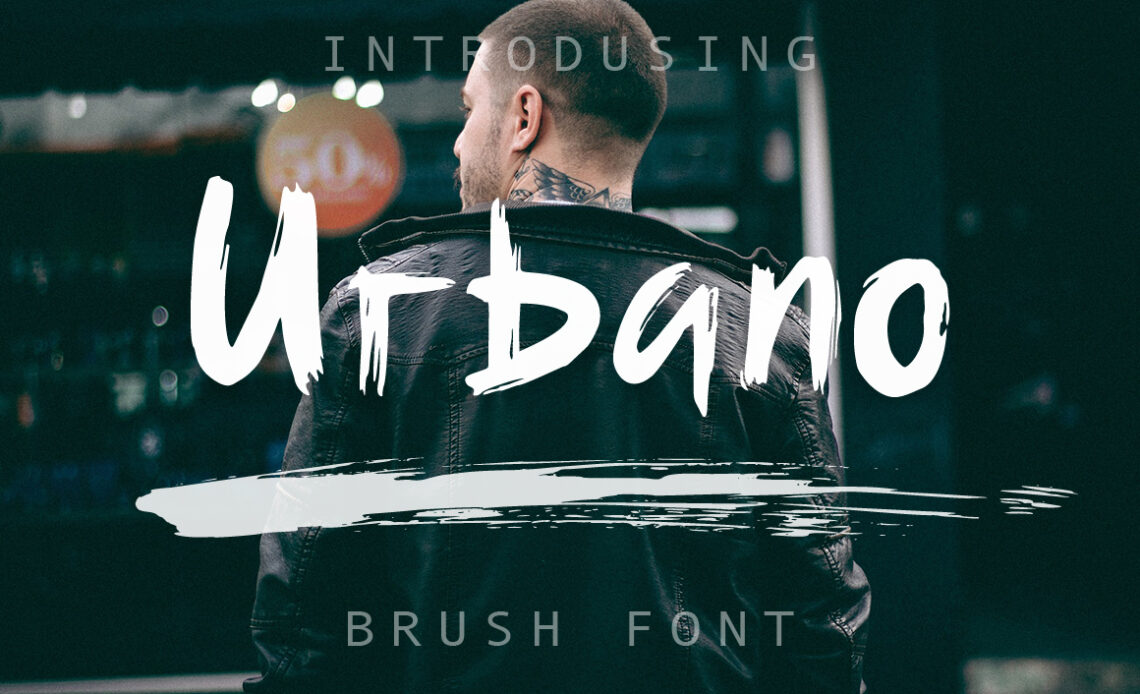
**Unleash the Urban Spirit with Urbano Font: Where Imagination Knows No Bounds**
Dive into the vibrant streets of urban expression with Urbano Font, a captivating script that dances with the rhythm of city life. Born from the creative hands of Red Ink, Urbano embodies the raw energy and authenticity of handwritten brushstrokes, inviting you to paint your digital canvases with a touch of urban flair.
Urbano is not just a font; it's a gateway to a world of endless creative possibilities. Its rough texture, reminiscent of large brushes and rapid strokes, breathes life into your designs. Let your imagination soar as you craft logos that embody the pulse of the city, posters that evoke the allure of urban landscapes, and social media graphics that capture the spirit of street art.
With Urbano, the possibilities are limitless. Its bold, edgy character adds a touch of urban grit to any design, transforming your words into vibrant expressions of urban culture. Whether you're a seasoned designer or a creative novice, Urbano empowers you to infuse your projects with the raw energy and authenticity of the urban experience.
So why settle for ordinary fonts when you can embrace the vibrancy of Urbano? Let your creativity flow freely and paint your digital world with the colors of the city. From captivating headlines to eye-catching social media posts, Urbano is the perfect tool to add an urban edge to your designs and leave a lasting impression on your audience.
Unlock the urban spirit within your designs today with Urbano Font. Embrace the raw energy of handwritten brushstrokes and let your imagination roam free in the concrete jungle of creativity.